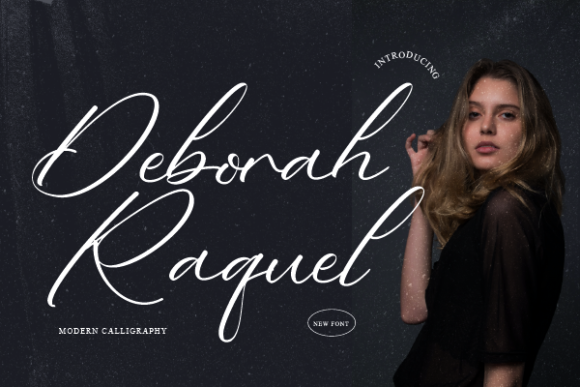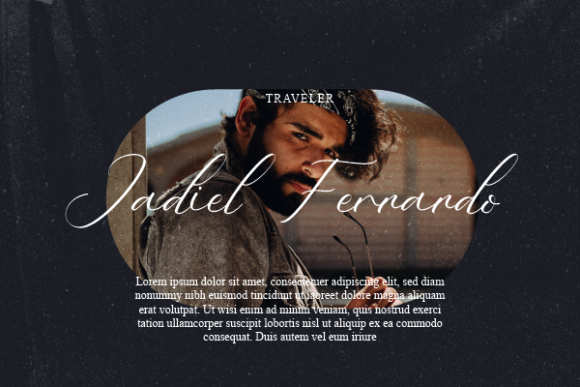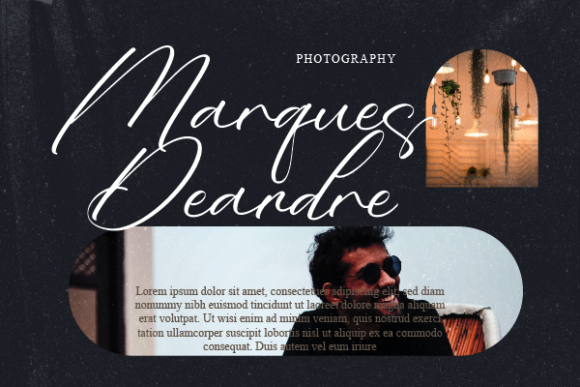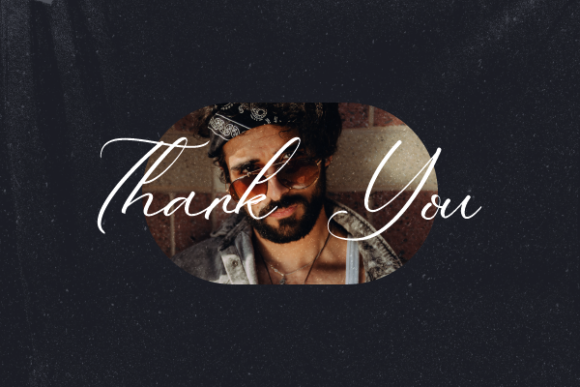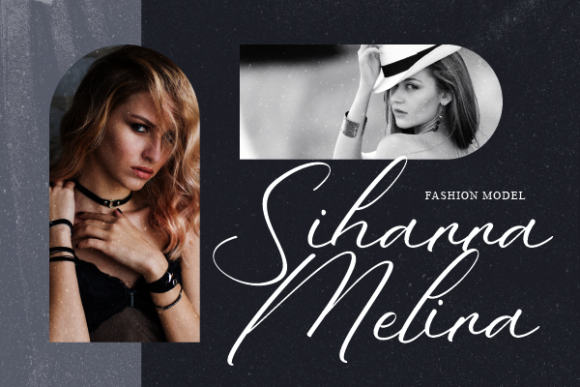
About Deborah Raquel Font
“Deborah Raquel is not just a font; itβs a work of art. This luxurious handwritten font is a testament to the beauty of typography. With its elegant and curvy lines, Deborah Raquel is designed to make your work stand out. Itβs more than just a typeface; itβs a tool for creating stunning visuals that captivate and inspire.
One of the standout features of Deborah Raquel is its versatility. It is perfect for any branding project, from logos to t-shirt printing, creative products, and more. Whether youβre a professional designer working on a major branding project or a hobbyist creating personalized items, Deborah Raquel is the font for you.
But Deborah Raquel is not just versatile; itβs also fashionable. With its modern and stylish design, Deborah Raquel is a font that stays ahead of the trends. Itβs a font that makes a statement, a font that stands out. Whether youβre creating a logo for a cutting-edge fashion brand or designing a poster for a trendy event, Deborah Raquel is the font that will help you make a statement.
Moreover, Deborah Raquel is designed to look extraordinary in a variety of contexts. Whether itβs on a business card, a website, a billboard, or a t-shirt, Deborah Raquel shines. Its unique style and character make it a versatile and adaptable font that can elevate any design.
But the beauty of Deborah Raquel goes beyond its design. Itβs also a font thatβs easy to use. With its clear and legible characters, Deborah Raquel is a font thatβs easy to read and understand. This makes it a great choice for designs that need to communicate clearly and effectively.
In conclusion, Deborah Raquel is a superb handwritten font thatβs perfect for any project. With its unique style and versatility, itβs a font that can make any design stand out. Whether youβre a professional designer or a hobbyist, Deborah Raquel is a font thatβs worth checking out.”